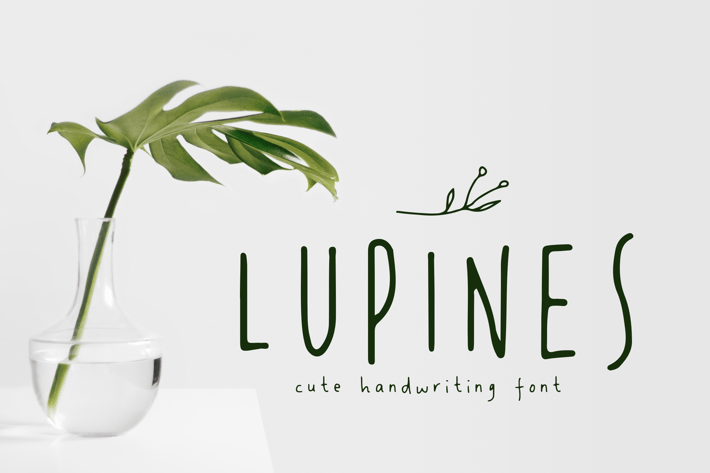
LUPINES - Cute Skinny Handwriting Font
Organic and natural style of font, that will bring a friendliness and cute fresh style to your projects. Comes with plenty of nature foliage, floral, and shapes BONUS in .eps, perfect for your logo, label, websites, name card, and so on.
It also support multilanguage with 16 of it.